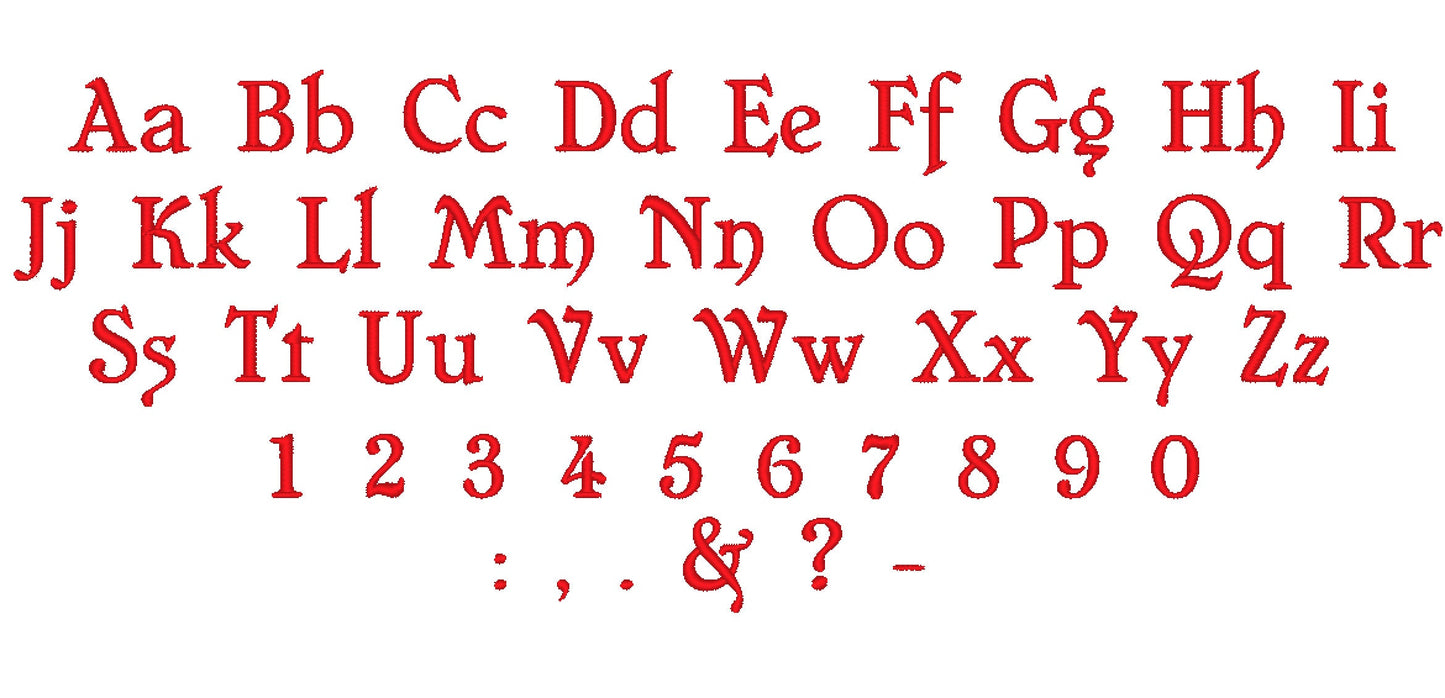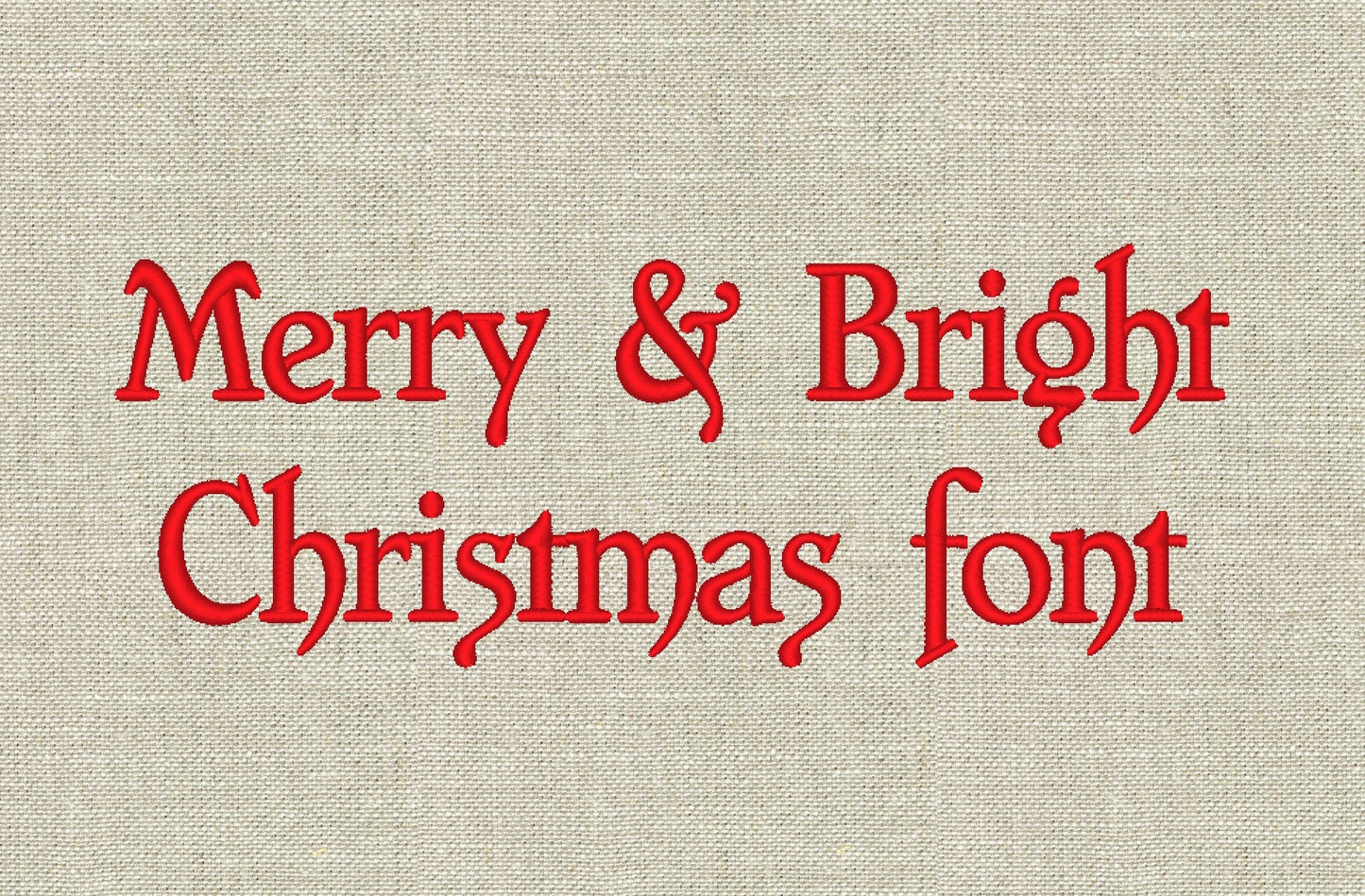
Or click to open the linkA classic handwritten mini font in satin stitch with curls, lovely for Christmas names, dates and small words.
A small curly script in satin stitch. Uppercase and lowercase letters, numbers 0 to 9 and punctuation in seven sizes: 0.4, 0.6, 0.8, 1, 1.2, 1.6 and 2 inches.